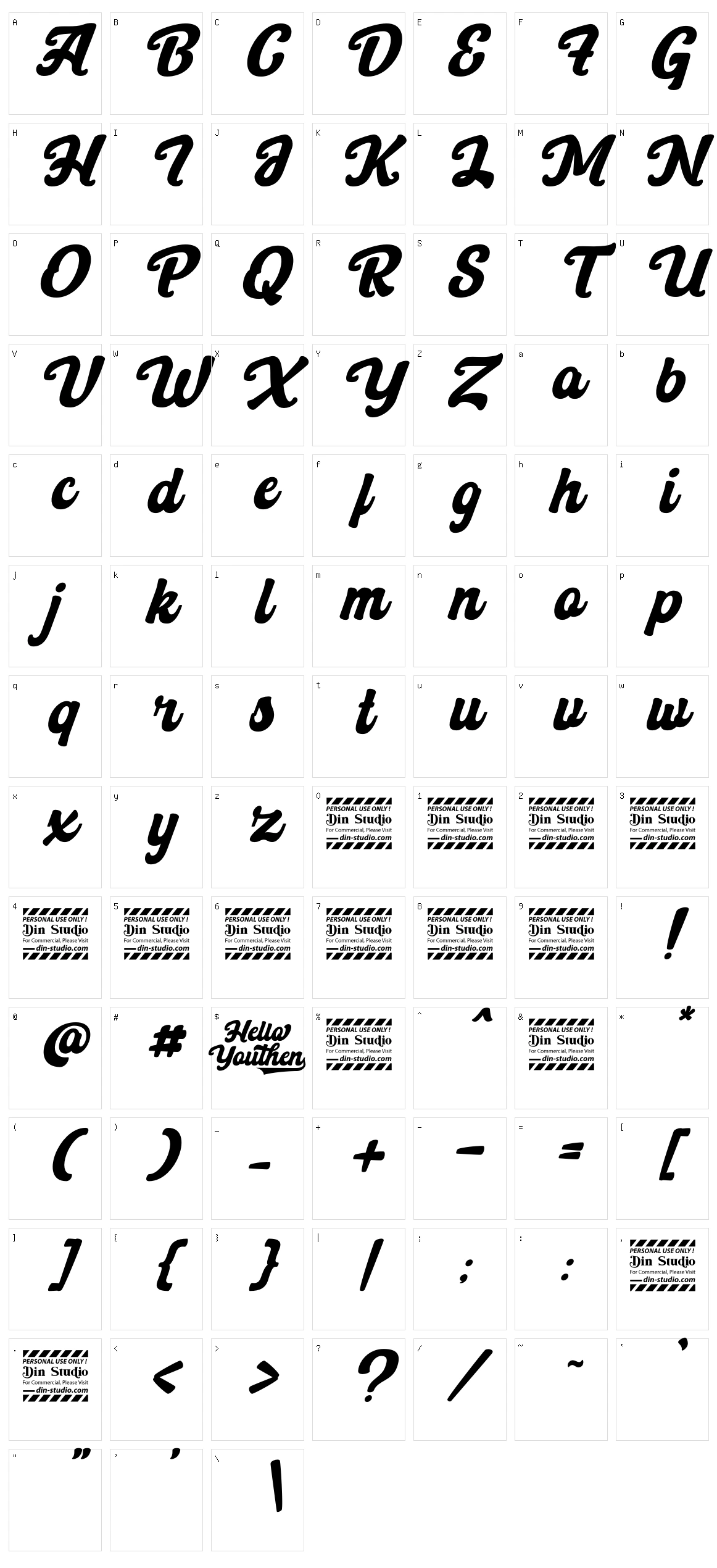
The free font Hello Youthen is carefully designed by Din Studio, showcasing a thoughtful balance of creativity and usability and falls under the Old-School font style. When you download the ZIP file, it contains only 305.57 KB of font files, making it lightweight and quick to download. Please review the license details below to understand permitted usage and distribution rights. If license information is not available, we recommend using this font for personal projects only or contacting the author directly for commercial usage permissions.